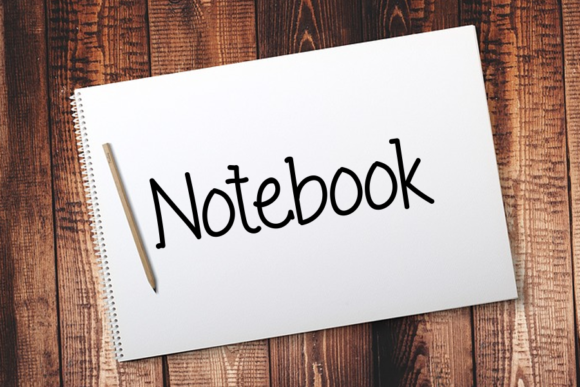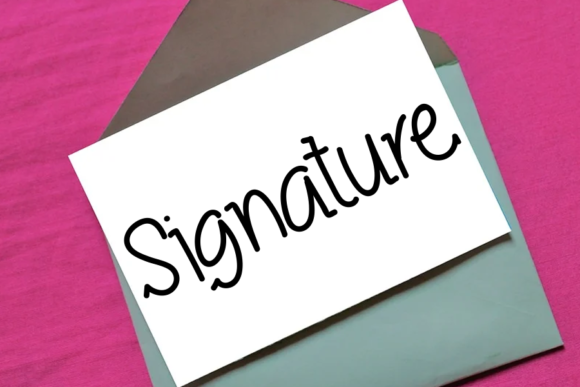
Workplace Font
db-ku.com - Script & Handwritten -- Workplace is a handwritten font that can be used for all chalkboard quotes or teaching material! Its authentic handwritten look and feel will add a personal and realistic feel to your designs.